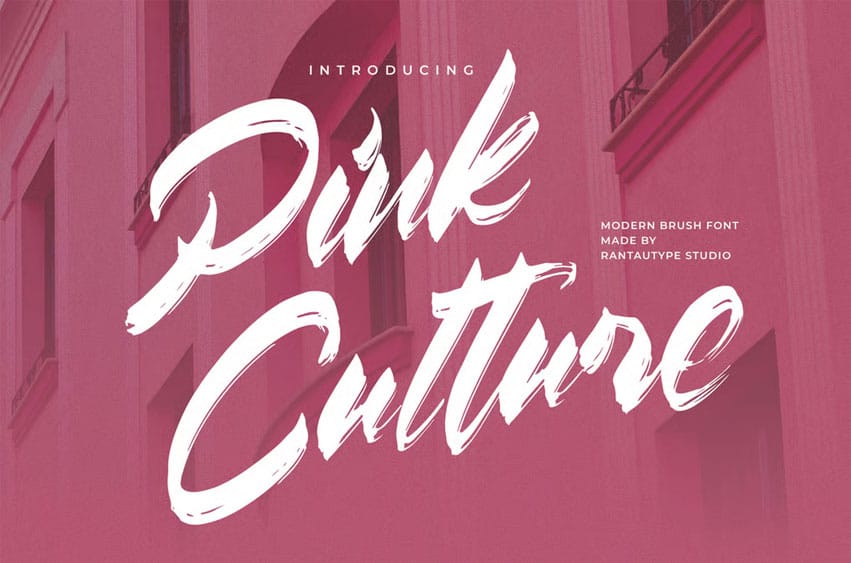
Pink Culture Font is a brush font that embodies a sense of freedom, confidence, and personality. Each letter flows with expressive movement, mimicking the authentic touch of a brush dipped in ink or paint.
Pink Culture is a perfect choice for any creative endeavor, chic lifestyle design, such as logotype, advertisements, watermark on photography, stationery, branding project, display and magazine, invitation, corporate brand, product design, label, business project, and many other projects with a modern touch.